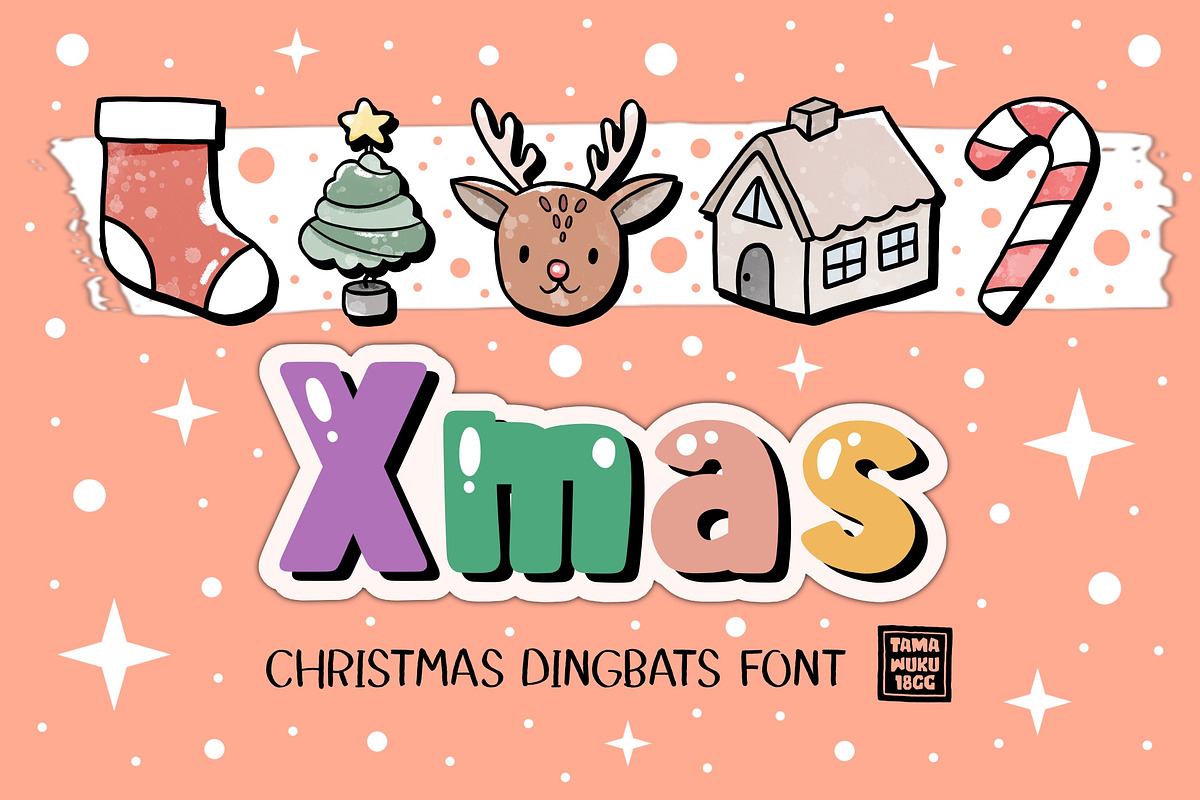
Xmas OTF Font Free Download is a festive and joyful typeface designed to add a touch of holiday magic to your designs. With its playful letterforms and charming decorations, Xmas OTF is perfect for Christmas cards, holiday party invitations, festive branding, social media posts, and seasonal advertisements.
Filled with holiday spirit, Xmas OTF Font Free Download features decorative elements and fun details that make it ideal for adding festive cheer to any project. Whether you’re designing for family events, creating gift tags, or building a winter-themed brand, this font will bring the warmth and joy of the season into your typography.